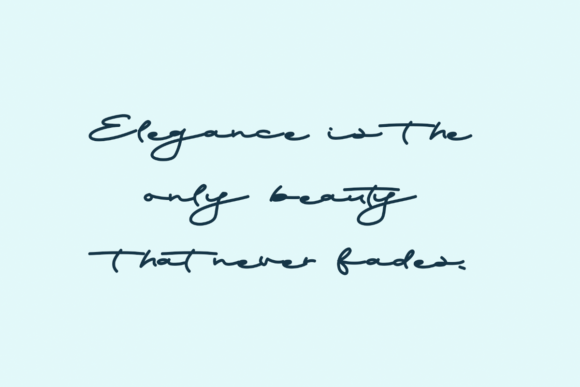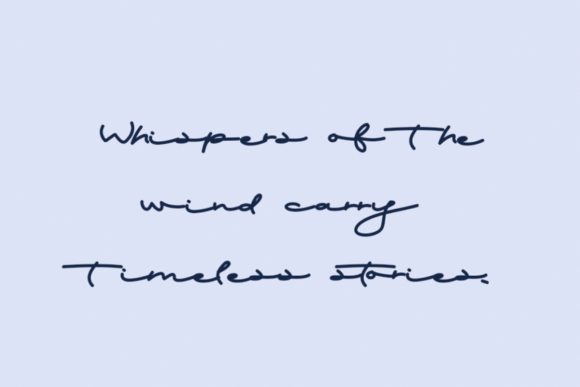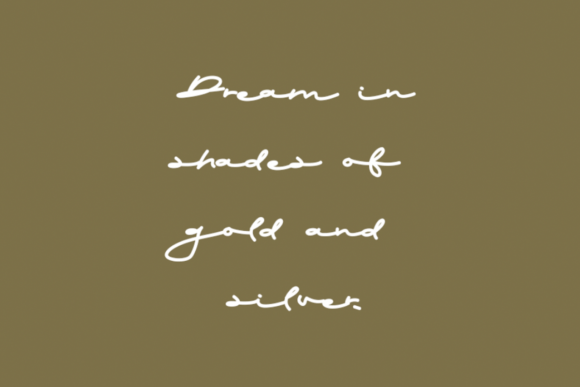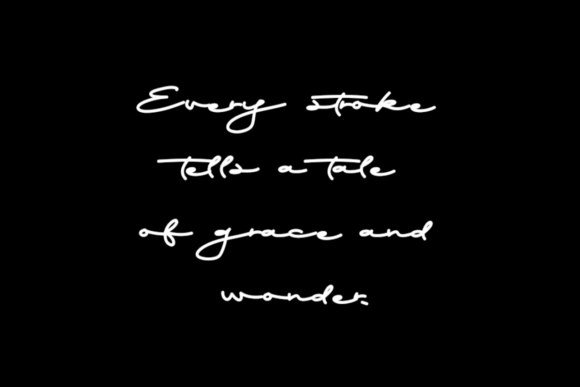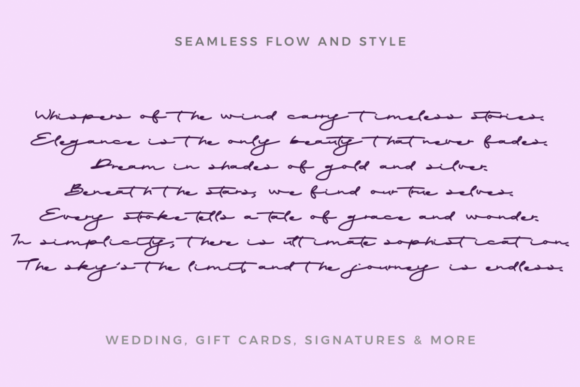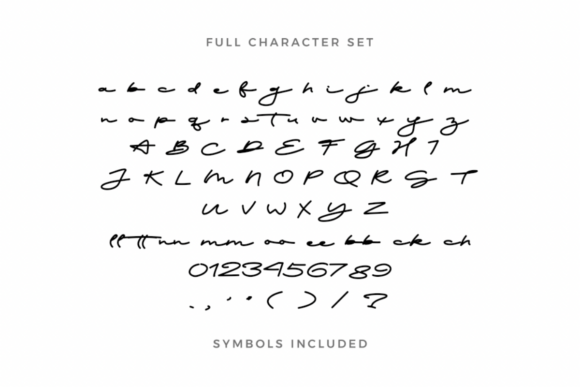
Unveiling Coraline: The Quintessential Script Font for Designers and Crafters
In the realm of typography, few fonts have managed to capture the essence of elegance and charm as effectively as Coraline. This extraordinary script font beautifully marries the charm of hand-lettering with the elegance of handwritten script, making it a versatile and sought-after choice for designers and crafters alike. With its distinctive style, Coraline strikes an ideal balance between finesse and warmth, effortlessly adding a dash of artistry to any design.
The Unique Appeal of Coraline
Coraline’s unique appeal lies in its ability to render a quintessential blend of classic flair and modern sophistication. Every stroke of this lovely script font is meticulously designed to capture the essence of uniqueness, promising to illuminate your creations with an unwavering touch of enchantment. Whether you’re working on a branding project, crafting a wedding invitation, or designing a packaging label, Coraline’s distinctive charm is sure to leave a lasting impression.
Key Features of Coraline Script Font
- Hand-lettered elegance: Coraline boasts a beautiful, hand-lettered style that adds a touch of warmth and personality to any design.
- Script font sophistication: With its flowing script style, Coraline exudes elegance and refinement, making it perfect for high-end branding and design projects.
- Unique character: Coraline’s distinctive style sets it apart from other script fonts, ensuring that your designs stand out from the crowd.
- Versatility: This versatile font can be used for a wide range of design projects, from wedding invitations and packaging labels to branding and advertising materials.
Design Applications for Coraline
Coraline’s versatility and unique appeal make it an excellent choice for a wide array of design projects. Here are some popular applications for this extraordinary script font:
- Wedding invitations and stationery: Coraline’s elegant script style makes it perfect for wedding invitations, save-the-date cards, and other wedding stationery.
- Branding and packaging: With its distinctive charm and sophistication, Coraline is an excellent choice for branding and packaging design, particularly for high-end products and luxury brands.
- Advertising and marketing materials: Coraline’s unique appeal and elegance make it an effective choice for advertising and marketing materials, such as brochures, flyers, and posters.
- Digital design: Coraline can also be used for digital design projects, including social media graphics, email headers, and website titles.
Tips for Using Coraline Effectively
To get the most out of Coraline, here are some tips for using this extraordinary script font effectively:
- Pair with contrasting fonts: Combine Coraline with contrasting fonts to create visual interest and hierarchy in your designs.
- Use for headlines and titles: Coraline’s elegant script style makes it perfect for headlines and titles, where it can add a touch of sophistication and elegance.
- Experiment with colors: Coraline looks stunning in a range of colors, so don’t be afraid to experiment and find the perfect hue for your design.
- Pay attention to spacing: To ensure that Coraline looks its best, pay attention to spacing and kerning, particularly when using the font for body text.
In conclusion, Coraline is an extraordinary script font that offers a unique blend of elegance, charm, and sophistication. With its distinctive style and versatility, Coraline is perfect for a wide range of design projects, from wedding invitations and branding to advertising and digital design. By incorporating Coraline into your design repertoire, you’ll be able to add a touch of artistry and enchantment to your creations, setting them apart from the crowd and leaving a lasting impression on your audience.